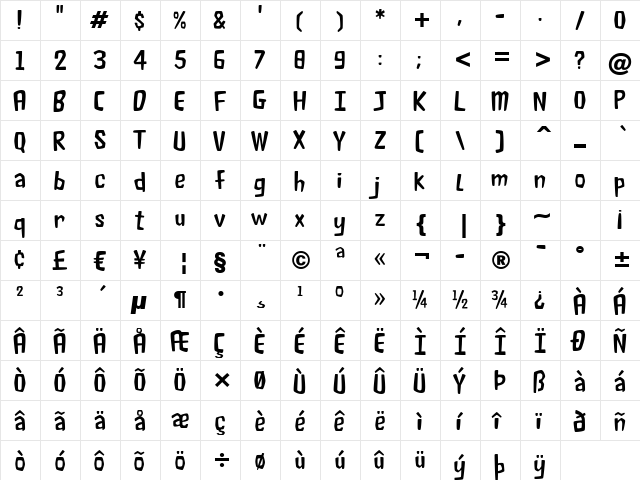
Fluffy Slacks BTN Lt Regular
Design Context for Fluffy Slacks BTN Lt Typeface
Fluffy Slacks BTN Lt is a composed and adaptable typeface that performs quietly and consistently across a wide range of design contexts. Its slender proportions lend an understated elegance to any composition.